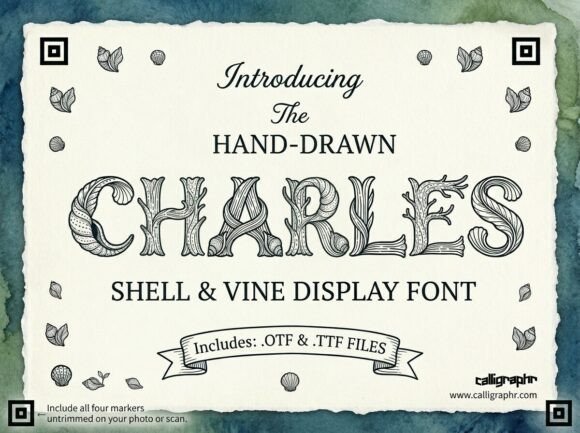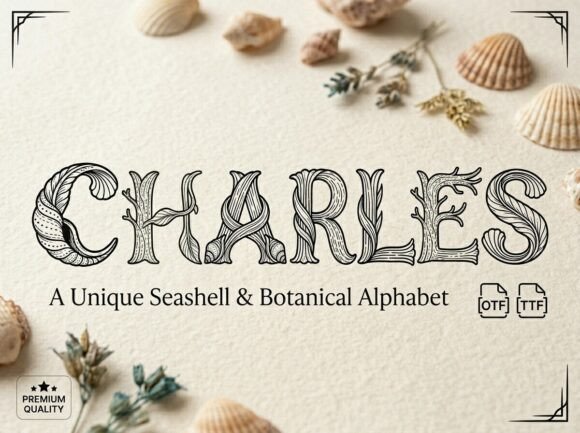
Introducing Charles Font: A Stunning Decorative Display Font
Are you tired of using the same old fonts for your designs? Do you want to make a statement and stand out from the crowd? Look no further than Charles Font, a breathtaking decorative display font that’s sure to turn heads. This font is designed to be the center of attention, featuring unique artistic elements and a strong visual personality that will elevate your designs to the next level.
What Makes Charles Font Special?
Charles Font is a versatile and sophisticated font that’s perfect for creators who want to break away from the ordinary. Its stunning decorative elements and strong visual personality make it ideal for bold headlines, artistic logos, and creative packaging. Whether you’re a designer, craftsperson, or DIY enthusiast, this font is sure to inspire your creativity and help you produce professional-looking results.
Key Features of Charles Font
- Unique Artistic Elements: Charles Font features intricate and artistic elements that will add a touch of elegance and sophistication to your designs.
- Strong Visual Personality: This font has a bold and confident personality that’s sure to make a statement in any design.
- Versatile: Charles Font is perfect for a wide range of design applications, including bold headlines, artistic logos, and creative packaging.
- Professional and Polished Finish: Despite its decorative nature, Charles Font maintains a professional and polished finish that’s suitable for even the most high-end designs.
⚠️ IMPORTANT NOTE BEFORE PURCHASE: Charles Font is an ALL-CAPS (Uppercase Only) display typeface. It does not include lowercase letters. It is specifically designed for high-impact headlines, logos, and decorative initials where every letter is a work of art.
Why Choose Charles Font?
There are many fonts available on the market, but Charles Font stands out from the rest due to its unique artistic elements and strong visual personality. Here are just a few reasons why you should choose Charles Font for your next design project:
- Make a Statement: With Charles Font, you can create bold and eye-catching headlines that will grab attention and make a lasting impression.
- Elevate Your Brand: Use Charles Font to create a professional and polished logo that will elevate your brand and set you apart from the competition.
- Add a Touch of Elegance: Charles Font is perfect for adding a touch of elegance and sophistication to your designs, whether you’re creating packaging, business cards, or social media graphics.
Tips for Using Charles Font
Here are a few tips for getting the most out of Charles Font:
- Use it Sparingly: Charles Font is a bold and attention-grabbing font, so use it sparingly to avoid overwhelming your design.
- Experiment with Colors: Try pairing Charles Font with different colors to create a unique and eye-catching effect.
- Mix and Match: Don’t be afraid to mix and match Charles Font with other fonts to create a unique and visually interesting design.
Charles Font is a stunning decorative display font that’s perfect for creators who want to make a statement and stand out from the crowd. With its unique artistic elements, strong visual personality, and versatility, this font is sure to elevate your designs to the next level. Whether you’re a designer, craftsperson, or DIY enthusiast, Charles Font is a must-have font that will help you produce professional-looking results.